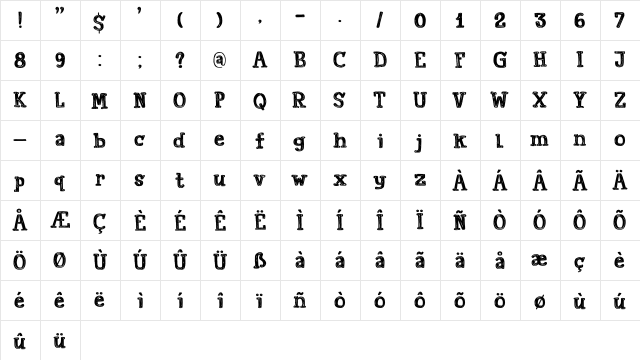
Printout DEMO Regular
| Foundry | David Kerkhoff |
| Designer | David Kerkhoff |
Design Context for Printout DEMO Typeface
Printout DEMO is a composed and adaptable typeface that performs quietly and consistently across a wide range of design contexts.